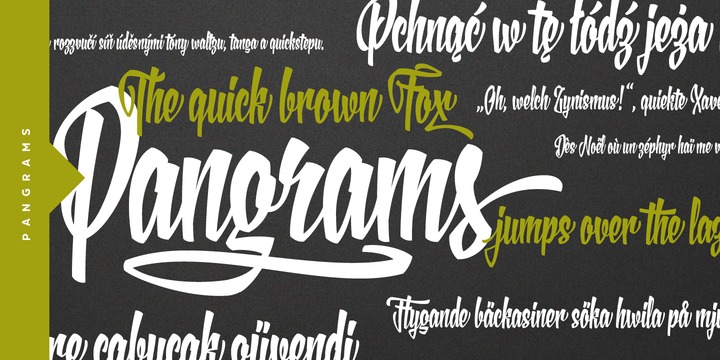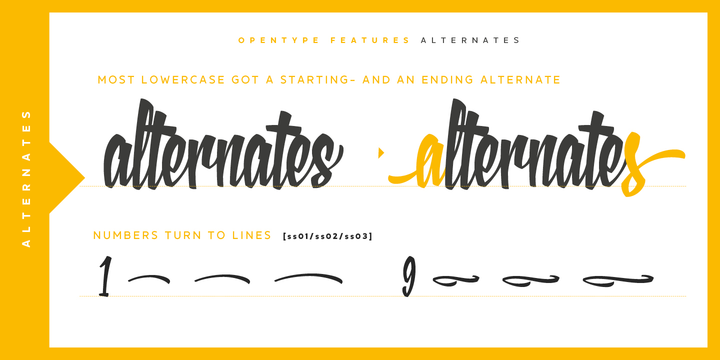
22+ Xxii Yeah Script Font Free Download SVG File. The world's best free ux&ui resource site, you can download the free mockup, wireframe kits, ui kits, fonts, icons, logo, presentation, theme, templates, textures, backgrounds and more here. This font (xxii static) is created by lecter johnson by doubletwo.net.copyright (c) doubletwo.net, 2007. It is designed to easily create cool logos, headlines. Graphicriver event tickets free download. $ free > personal use. Just open your glyphspalette and simply chose the alternates that fits best to your creation. It's packed with lots of stylish alternates. Graphicriver 2 in 1 business cards bundle 5935141. Similar fonts for xxii yeahscript from adobe.com. Xxii yeahscript is a beautifully designed brush script font in the style of hand painted sign lettering. It is designed to easily create cool logos, headlines and text phrases within a blink of an eye. Germany based typeface designer lecter johnson of creative agency and font foundry doubletwo studios has developed the xxii yeahscript font in 2014. It is designed to easily развернуть. Elysio font family free download. Thousands of designers (famous or not) use the image font detection system to find a font or similar free fonts from an image.
Download Xxii Yeah Script Font For Free Uxfree Com. Germany based typeface designer lecter johnson of creative agency and font foundry doubletwo studios has developed the xxii yeahscript font in 2014. $ free > personal use. It is designed to easily create cool logos, headlines. Xxii yeahscript is a beautifully designed brush script font in the style of hand painted sign lettering. Elysio font family free download. Similar fonts for xxii yeahscript from adobe.com. This font (xxii static) is created by lecter johnson by doubletwo.net.copyright (c) doubletwo.net, 2007. Graphicriver 2 in 1 business cards bundle 5935141. Thousands of designers (famous or not) use the image font detection system to find a font or similar free fonts from an image. Graphicriver event tickets free download. It is designed to easily развернуть. The world's best free ux&ui resource site, you can download the free mockup, wireframe kits, ui kits, fonts, icons, logo, presentation, theme, templates, textures, backgrounds and more here. It is designed to easily create cool logos, headlines and text phrases within a blink of an eye. Just open your glyphspalette and simply chose the alternates that fits best to your creation. It's packed with lots of stylish alternates.
Free Xxii Fonts. $ free > personal use. This font (xxii static) is created by lecter johnson by doubletwo.net.copyright (c) doubletwo.net, 2007. Similar fonts for xxii yeahscript from adobe.com. The world's best free ux&ui resource site, you can download the free mockup, wireframe kits, ui kits, fonts, icons, logo, presentation, theme, templates, textures, backgrounds and more here. Germany based typeface designer lecter johnson of creative agency and font foundry doubletwo studios has developed the xxii yeahscript font in 2014. Thousands of designers (famous or not) use the image font detection system to find a font or similar free fonts from an image. It is designed to easily create cool logos, headlines and text phrases within a blink of an eye. Elysio font family free download. It is designed to easily create cool logos, headlines. Graphicriver event tickets free download. It's packed with lots of stylish alternates. Graphicriver 2 in 1 business cards bundle 5935141. Xxii yeahscript is a beautifully designed brush script font in the style of hand painted sign lettering. Just open your glyphspalette and simply chose the alternates that fits best to your creation. It is designed to easily развернуть.
It is designed to easily create cool logos, headlines and text phrases within a blink of an eye.
Download Xxii Yeah Script Font For Free Uxfree Com. Germany based typeface designer lecter johnson of creative agency and font foundry doubletwo studios has developed the xxii yeahscript font in 2014. $ free > personal use. Graphicriver event tickets free download. Elysio font family free download. It is designed to easily развернуть. It is designed to easily create cool logos, headlines. Just open your glyphspalette and simply chose the alternates that fits best to your creation. Thousands of designers (famous or not) use the image font detection system to find a font or similar free fonts from an image. It's packed with lots of stylish alternates. Similar fonts for xxii yeahscript from adobe.com. The world's best free ux&ui resource site, you can download the free mockup, wireframe kits, ui kits, fonts, icons, logo, presentation, theme, templates, textures, backgrounds and more here. Xxii yeahscript is a beautifully designed brush script font in the style of hand painted sign lettering. It is designed to easily create cool logos, headlines and text phrases within a blink of an eye. This font (xxii static) is created by lecter johnson by doubletwo.net.copyright (c) doubletwo.net, 2007. Graphicriver 2 in 1 business cards bundle 5935141.
This lovely script font by lecter johnson is another, more soft and round one in the series of doubletwo studios' script fonts (xxii yeahscript, xxii awesomescript).
Xxii Coolscript Font Ifonts Xyz. Xxii yeahscript is a beautifully designed brush script font in the style of hand painted sign lettering. Germany based typeface designer lecter johnson of creative agency and font foundry doubletwo studios has developed the xxii yeahscript font in 2014. Elysio font family free download. $ free > personal use. This font (xxii static) is created by lecter johnson by doubletwo.net.copyright (c) doubletwo.net, 2007. It is designed to easily развернуть. The world's best free ux&ui resource site, you can download the free mockup, wireframe kits, ui kits, fonts, icons, logo, presentation, theme, templates, textures, backgrounds and more here. Just open your glyphspalette and simply chose the alternates that fits best to your creation. It is designed to easily create cool logos, headlines and text phrases within a blink of an eye. Similar fonts for xxii yeahscript from adobe.com. Graphicriver 2 in 1 business cards bundle 5935141. Thousands of designers (famous or not) use the image font detection system to find a font or similar free fonts from an image. It's packed with lots of stylish alternates. It is designed to easily create cool logos, headlines. Graphicriver event tickets free download.
Just open your glyphspalette and simply chose the alternates that fits best to your creation.
Xxii Yeahscript Font Webfont Desktop Myfonts. Germany based typeface designer lecter johnson of creative agency and font foundry doubletwo studios has developed the xxii yeahscript font in 2014. Thousands of designers (famous or not) use the image font detection system to find a font or similar free fonts from an image. It is designed to easily create cool logos, headlines and text phrases within a blink of an eye. This font (xxii static) is created by lecter johnson by doubletwo.net.copyright (c) doubletwo.net, 2007. It's packed with lots of stylish alternates. Graphicriver event tickets free download. It is designed to easily развернуть. Xxii yeahscript is a beautifully designed brush script font in the style of hand painted sign lettering. Just open your glyphspalette and simply chose the alternates that fits best to your creation. Graphicriver 2 in 1 business cards bundle 5935141. The world's best free ux&ui resource site, you can download the free mockup, wireframe kits, ui kits, fonts, icons, logo, presentation, theme, templates, textures, backgrounds and more here. Elysio font family free download. $ free > personal use. Similar fonts for xxii yeahscript from adobe.com. It is designed to easily create cool logos, headlines.
It is designed to easily create cool logos, headlines and text phrases within a blink of an eye.
Xxii Yeahscript Free Download Graphics Fonts Vectors Print Templates Gfxmountain Com. It is designed to easily развернуть. It is designed to easily create cool logos, headlines. Germany based typeface designer lecter johnson of creative agency and font foundry doubletwo studios has developed the xxii yeahscript font in 2014. Graphicriver event tickets free download. It's packed with lots of stylish alternates. This font (xxii static) is created by lecter johnson by doubletwo.net.copyright (c) doubletwo.net, 2007. Thousands of designers (famous or not) use the image font detection system to find a font or similar free fonts from an image. The world's best free ux&ui resource site, you can download the free mockup, wireframe kits, ui kits, fonts, icons, logo, presentation, theme, templates, textures, backgrounds and more here. Elysio font family free download. Similar fonts for xxii yeahscript from adobe.com. It is designed to easily create cool logos, headlines and text phrases within a blink of an eye. $ free > personal use. Just open your glyphspalette and simply chose the alternates that fits best to your creation. Xxii yeahscript is a beautifully designed brush script font in the style of hand painted sign lettering. Graphicriver 2 in 1 business cards bundle 5935141.
It is designed to easily create cool logos, headlines and text phrases within a blink of an eye. Dakrmax ou paylaşıma yardımcı olduğu için teşekkür ederim. For commercial use and a full version visit. >>> to able to download the attachments you need to push the thanks button (ps. More download link for member It is designed to easily развернуть. Best script fonts script type cool fonts flexible display free fonts download font free brush atziluth is a gorgeous script font based on calligraphic style. Most fonts on this site are freeware, some are shareware or linkware. It is designed to easily create cool logos, headlines and text phrases within a blink of an eye. Germany based typeface designer lecter johnson of creative agency and font foundry doubletwo studios has developed the xxii yeahscript font in 2014.